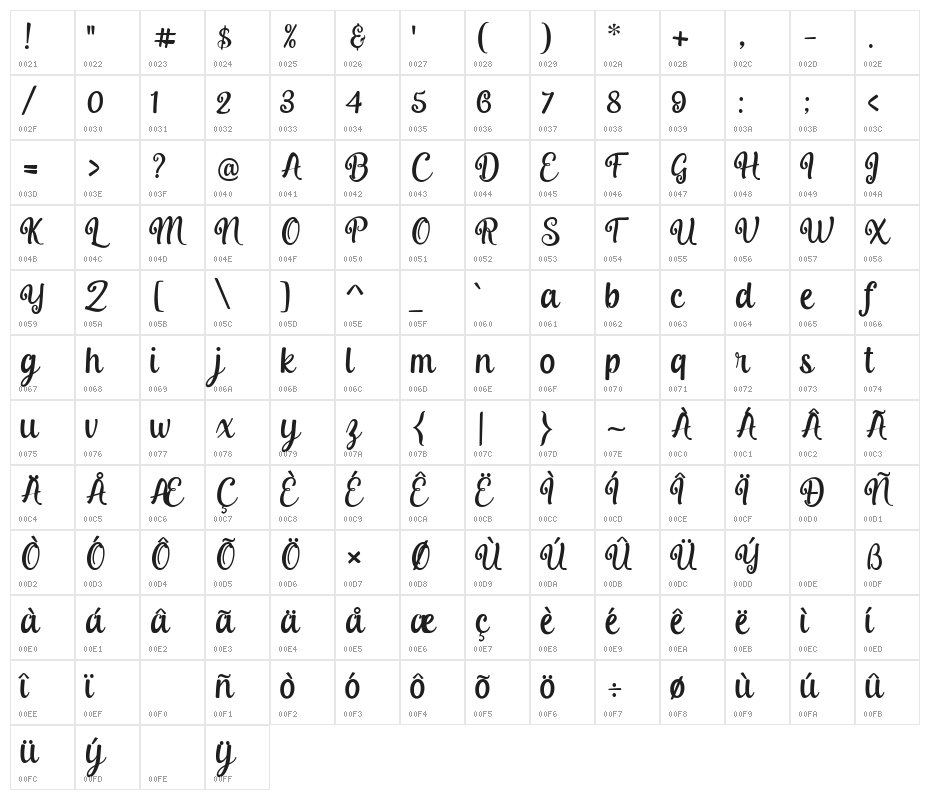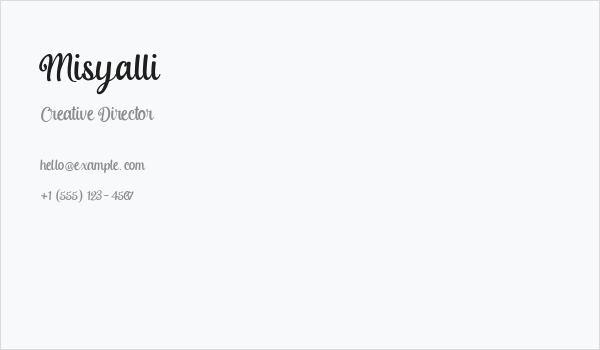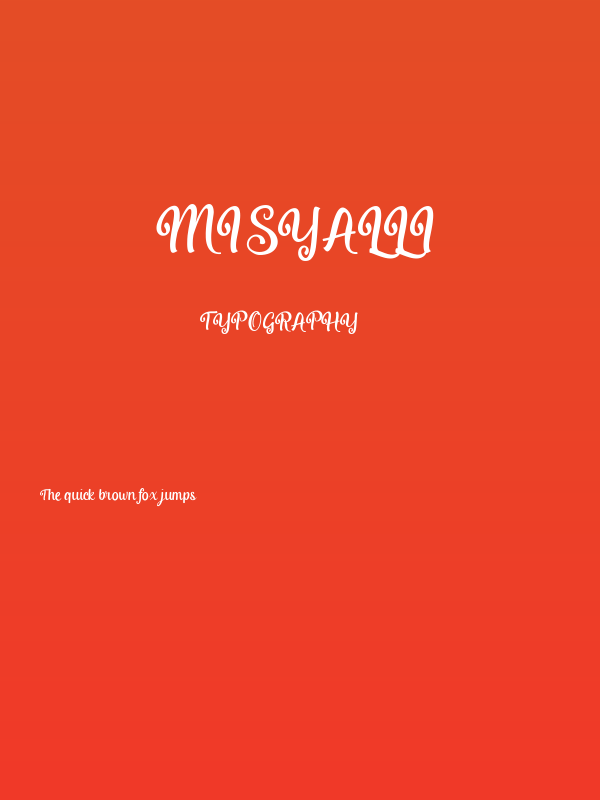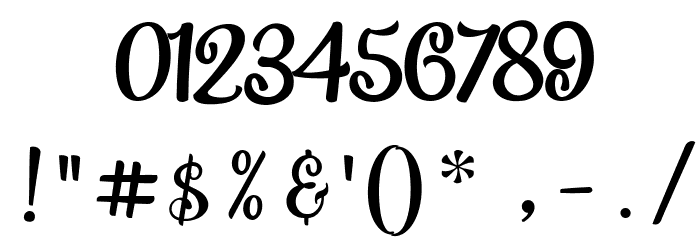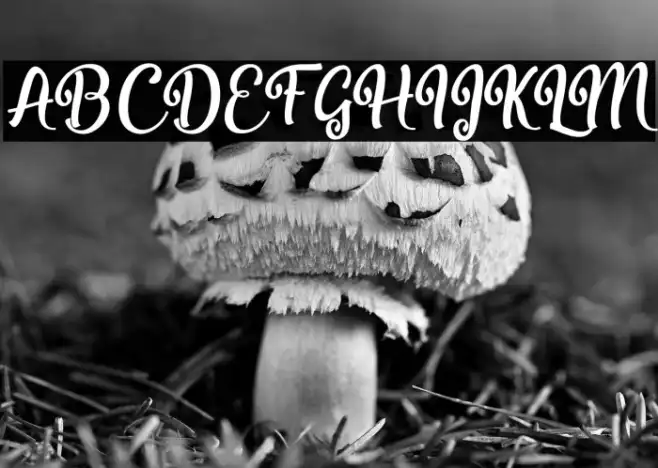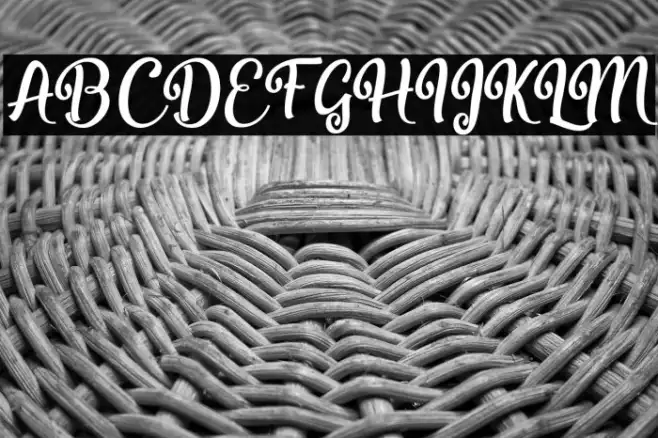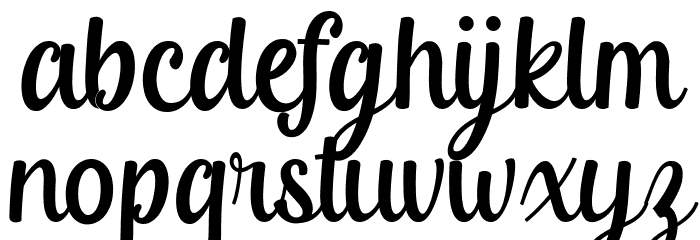
Misyalli Font
Misyalli Description
This font features a playful and whimsical script style with a flowing, cursive appearance. The characters are bold and rounded, with a consistent stroke width that gives it a friendly and approachable feel. The uppercase letters are slightly more elaborate, with decorative loops and flourishes, while the lowercase letters maintain a smooth and continuous flow. The numerals are equally bold, matching the overall style of the alphabet. Special characters are included, maintaining the same playful aesthetic. This font is ideal for projects that require a touch of elegance and fun.